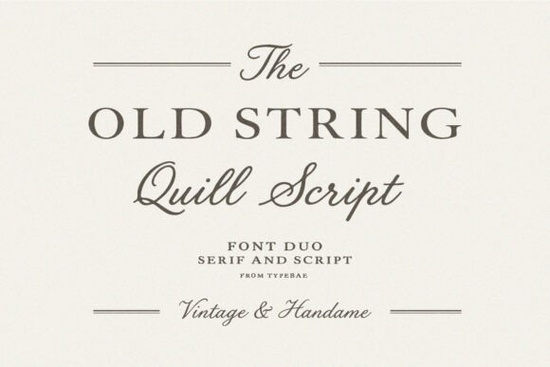
If you're looking for a font that feels both timeless and hand-crafted something that brings quiet elegance without looking stiff or overly formal Old String Font is worth your attention. It’s not just another vintage serif or script combo; it’s thoughtfully balanced. The serif half has clean, refined proportions inspired by early 20th-century book typography, while the script mimics the gentle pressure and flow of a fine quill pen not too ornate, not too casual. That balance makes it unusually versatile for real-world use, especially if you design wedding stationery, small-batch packaging, or boutique branding.
When does Old String Font work best?
It shines where warmth and intention matter more than trendiness. Think: a linen wedding invitation with subtle gold foil, a ceramic mug label for a local coffee roaster, or the logo for a handmade soap brand. Because the serif and script were designed as a duo not patched together they share consistent x-heights, spacing, and weight relationships. That means you can mix them in headlines and subheads without awkward visual jumps. You’ll also find OpenType features like ligatures and alternate characters, which help avoid repetitive letter combinations in longer script lines.
Compared to other retro-leaning fonts on Creative Fabrica, Old String Font avoids extremes. It’s less dramatic than some Montage Font variations, and more structured than looser handwritten scripts. If you’ve tried pairing fonts before and ended up with mismatched contrast or clashing moods, this duo simplifies that step. You’re not choosing two separate fonts you’re using one cohesive system.
How do designers actually use it?
Here’s what we’ve seen from real users:
- Wedding designers use the script for names and dates, and the serif for ceremony details or venue names keeping hierarchy clear without switching families.
- Print-on-demand sellers apply the serif to minimalist t-shirt quotes or tote bag slogans, then add the script as a small accent (like “est. 2023” or a tiny flourish) to suggest heritage without clutter.
- Small food businesses pair it with neutral photography for jam jar labels or bakery menus its soft contrast reads well at small sizes and feels approachable, not corporate.
- Crafters cut the script in vinyl for wall decals or use the serif in Cricut Design Space for layered wood signs, appreciating how cleanly both styles export at high resolution.
How does it compare to similar fonts?
Like retro typewriter fonts, Old String Font leans into nostalgia but skips the mechanical rigidity. Typewriter fonts often rely on uniform spacing and monoline weight, which can feel cold next to organic textures like watercolor paper or linen cardstock. Old String Font breathes instead. Its slight variation in stroke width and natural entry/exit strokes give it quiet movement.
You’ll also notice it’s more restrained than many serif fonts labeled “vintage” on Creative Fabrica no exaggerated serifs, no forced distressing, no faux-inkblots added as filler. That restraint helps it age well in your portfolio and avoids looking dated in six months’ time.
And while Montage Font offers bold contrast and strong personality, it’s often better suited to editorial headers or posters where impact comes first. Old String Font prioritizes harmony over contrast making it easier to build repeatable brand systems, especially if you’re managing multiple product lines or seasonal collections.
One practical note: if you’re working across devices (say, designing a logo in desktop software but previewing on mobile), test how the script renders at smaller sizes. It holds up well down to ~14pt in print, but below ~18pt on screen, the finer script details may soften depending on display resolution. A quick fix? Use the serif for body text or captions, and reserve the script for key focal points.
Ask yourself:
- Do I need both a serif and script that truly work together, not just sit beside each other?
- Will this be used in physical products (invitations, labels, signage) where subtlety and legibility matter more than flash?
- Am I okay with a quieter, more refined aesthetic or do I need high-contrast drama right away?
If the first two resonate, Old String Font is likely a solid match. It won’t shout but it will hold attention, quietly and consistently.